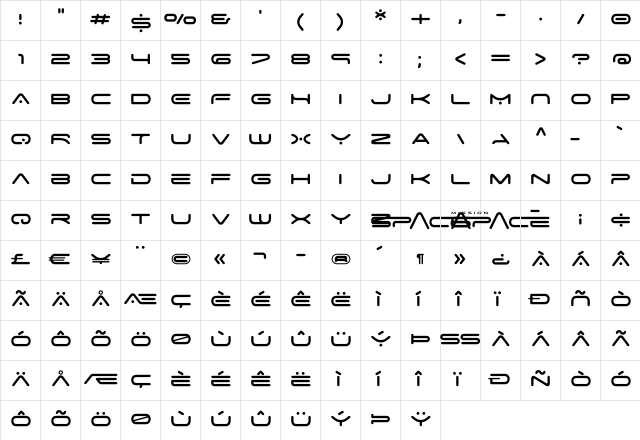
Space Age Regular
Design Context for Space Age Typeface
Space Age offers clean, dependable letterforms without strong stylistic allegiance, making it a practical choice for designers who need flexibility.